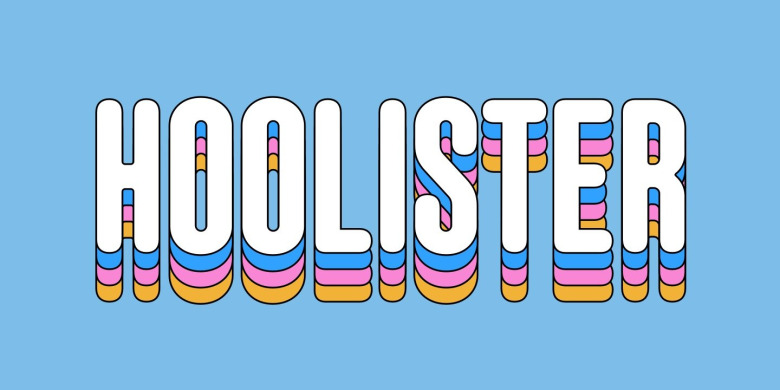
Hoolister Font
Hoolister is a Soft Rounded Sans Serif font manufactured by Ckhans Fonts. It’s a very versatile font that works great in large and small sizes. It comes in 9 weights, 58 uprights and its matching obliques, outlines, glowe, shaded, so you can use them to your heart’s content, in each of which there are more than 512+ glyphs.
Hoolister comprises 58 fonts, consisting of three distinct optical sizes: Display. Each one has been carefully tailored to the demands of its size. The larger Display versions are drawn to show off the subtlety of Hoolister and spaced with headlines in mind, while the Text sizes focus on legibility, using robust strokes and comfortably loose spaces. In the typeface, each weight includes extended language support, icons, fractions, tabular figures, arrows, ligatures and more.
Perfectly suited for graphic design and any display use. It could easily work for branding, web, signage, corporate as well as for editorial design. documents and folders, mobile interface.